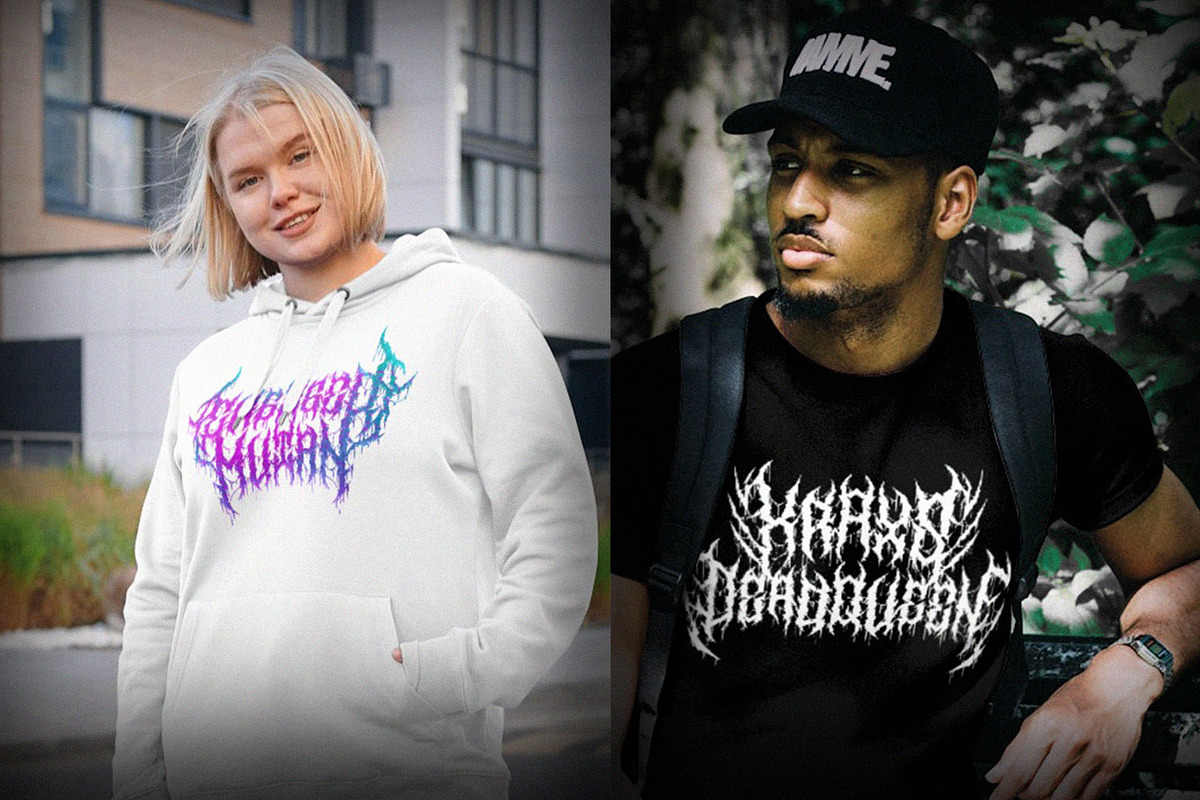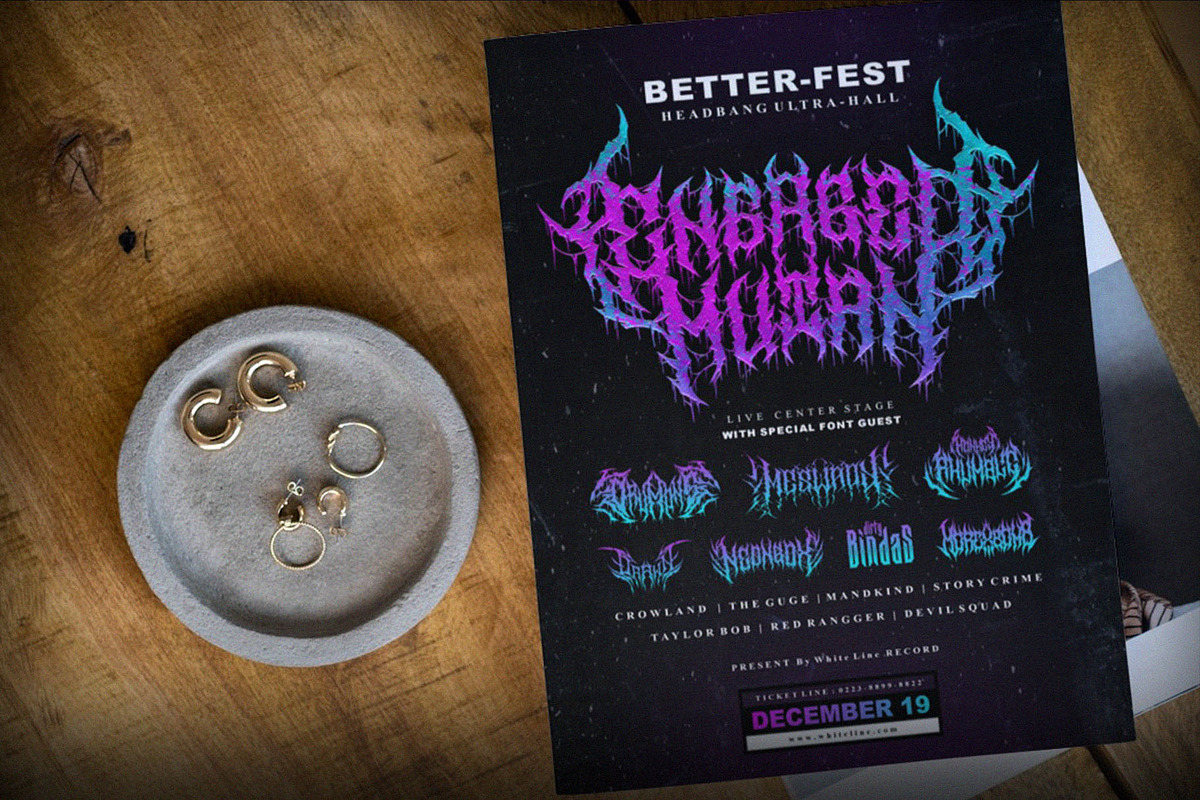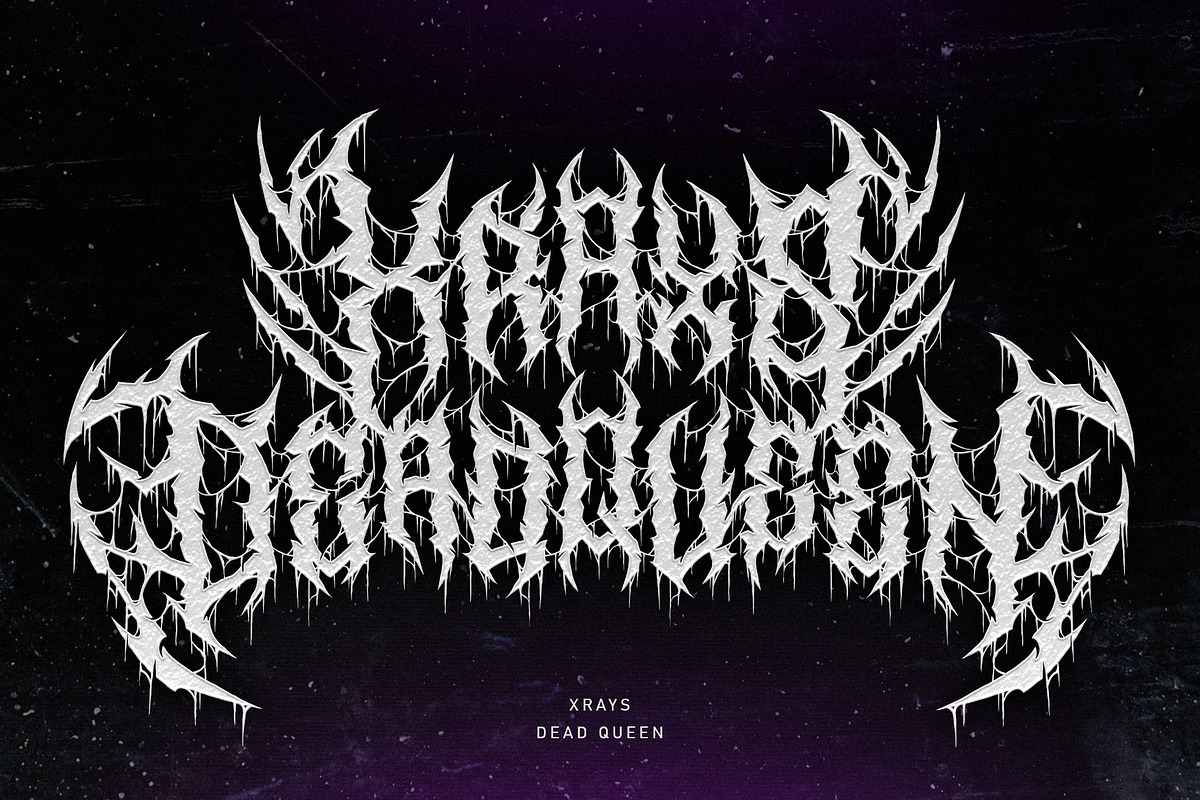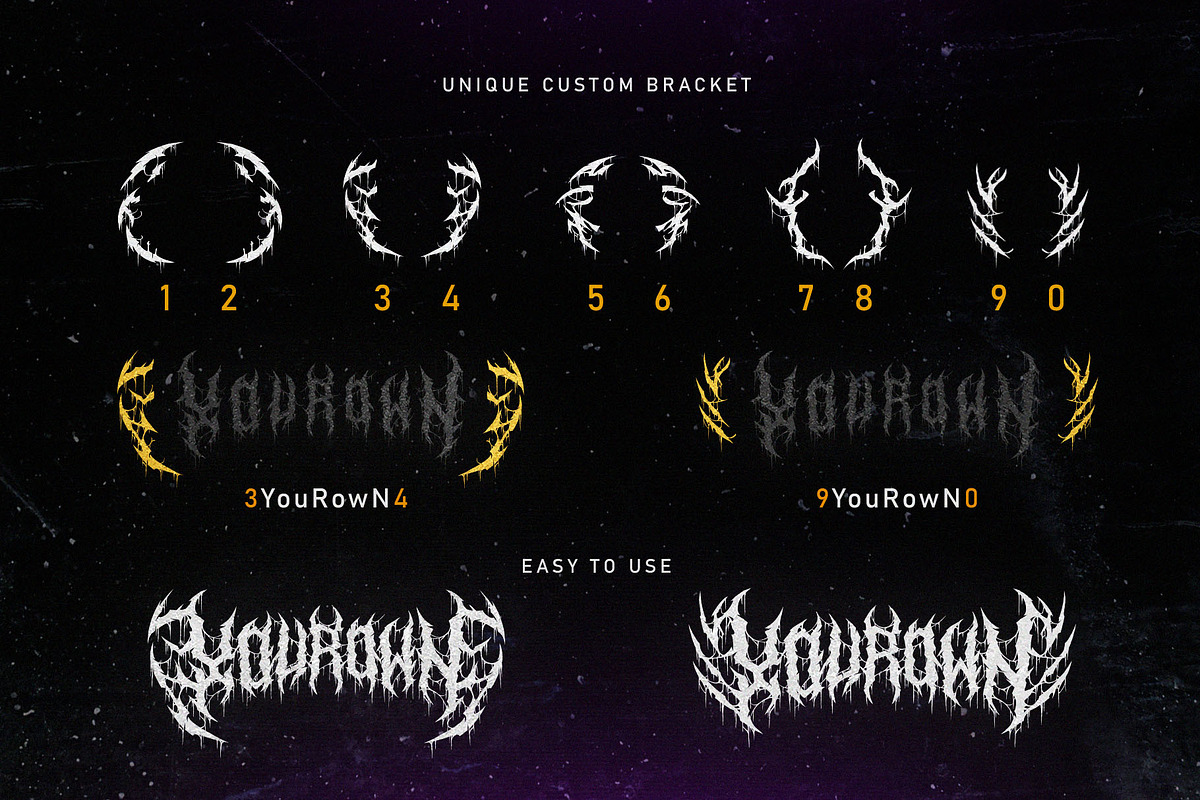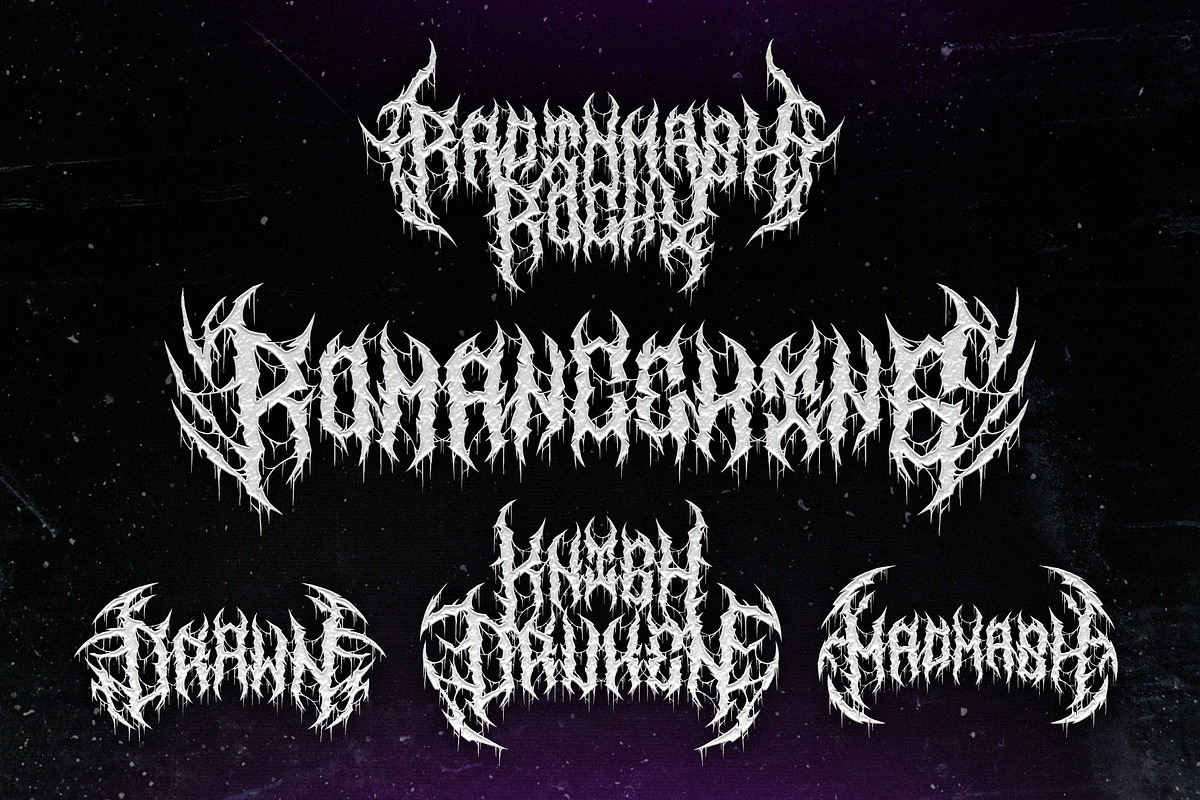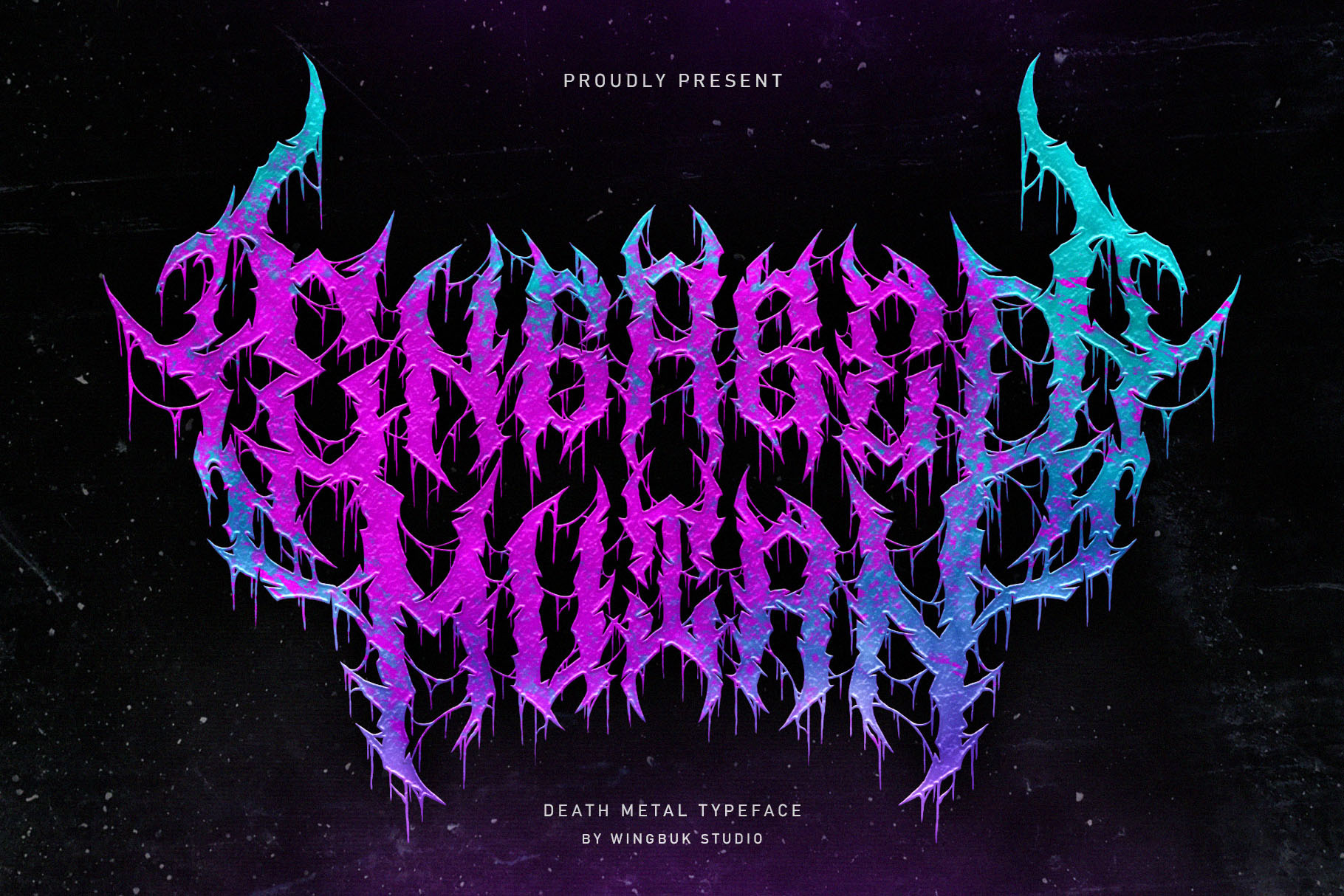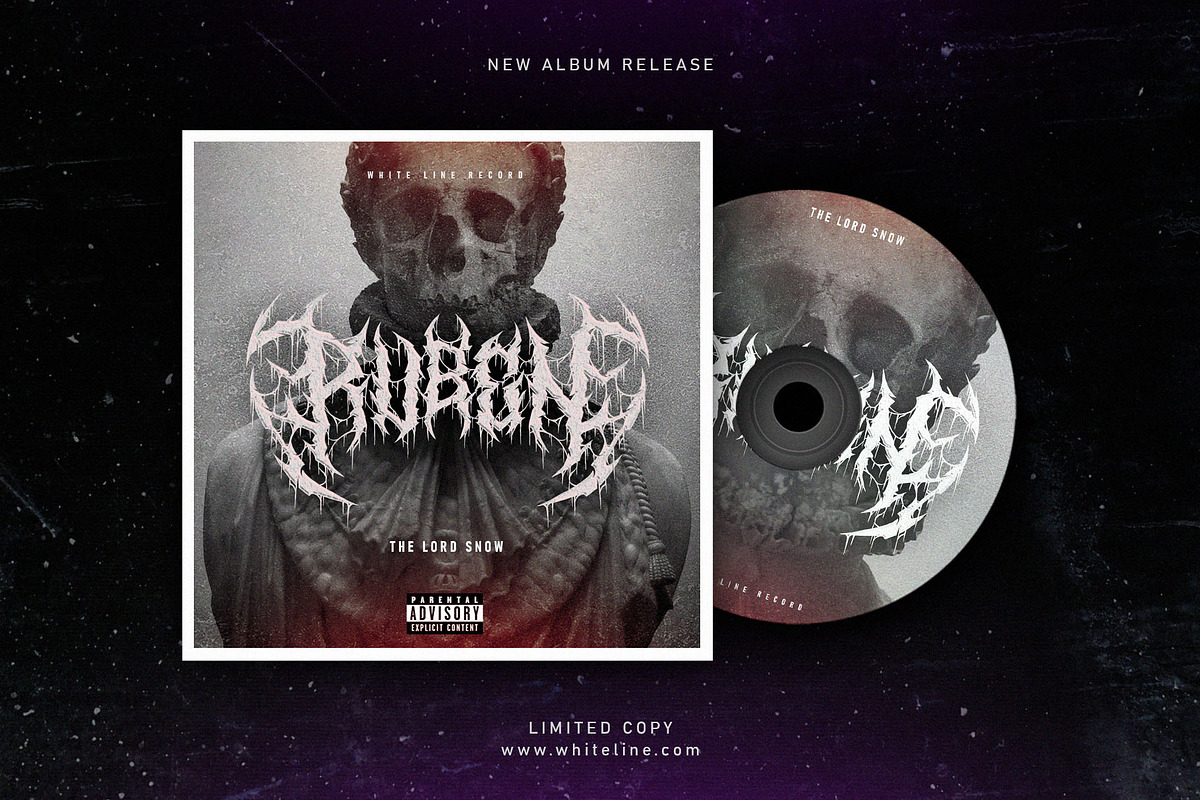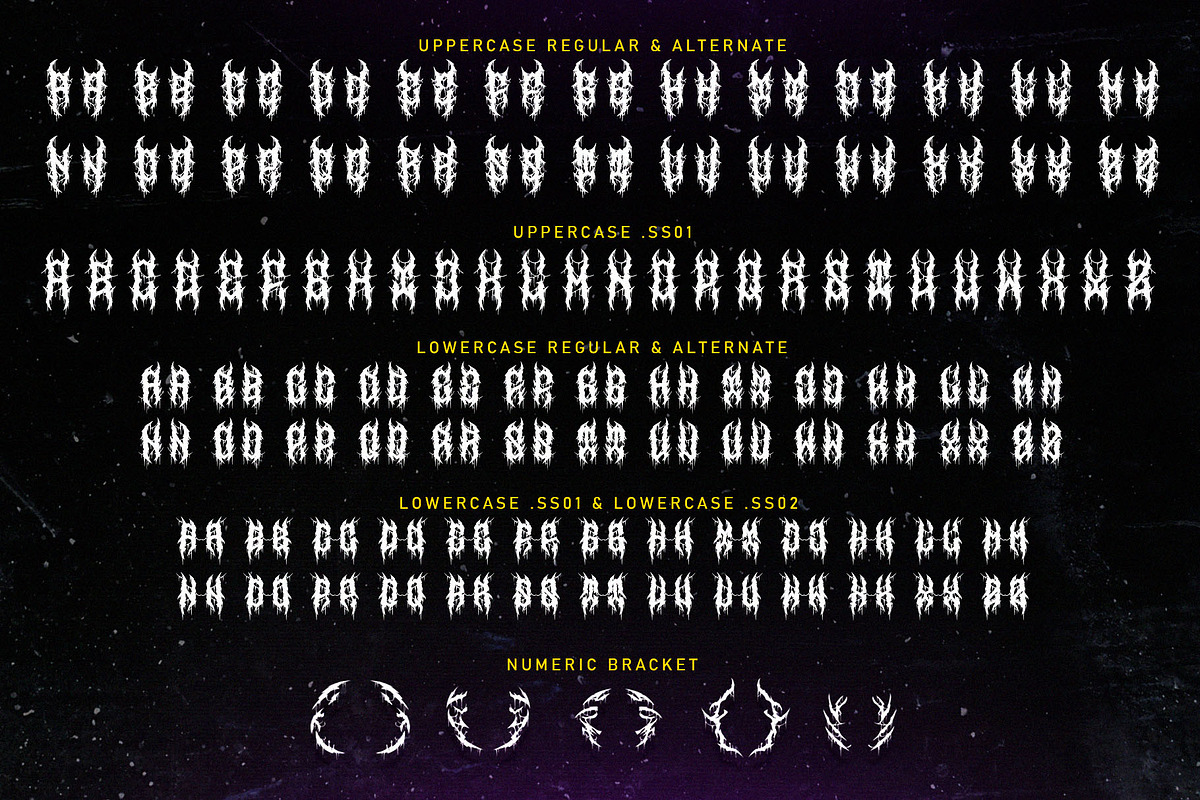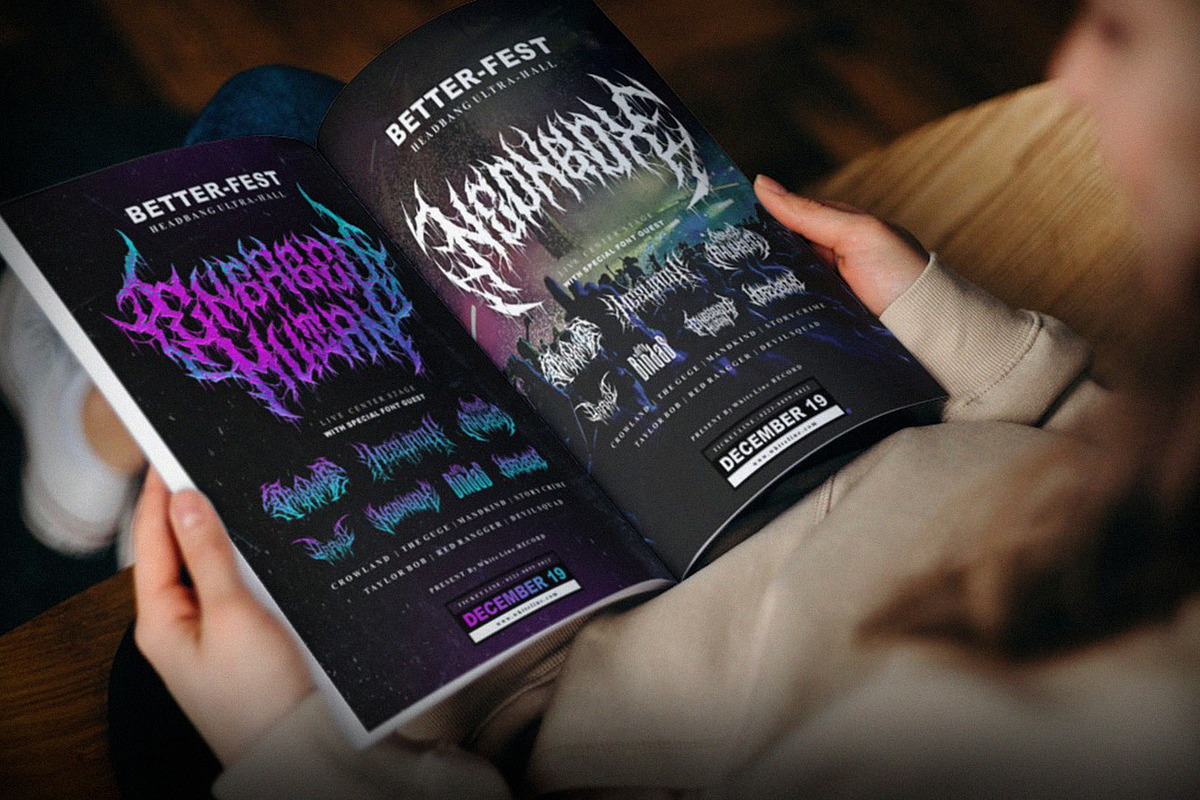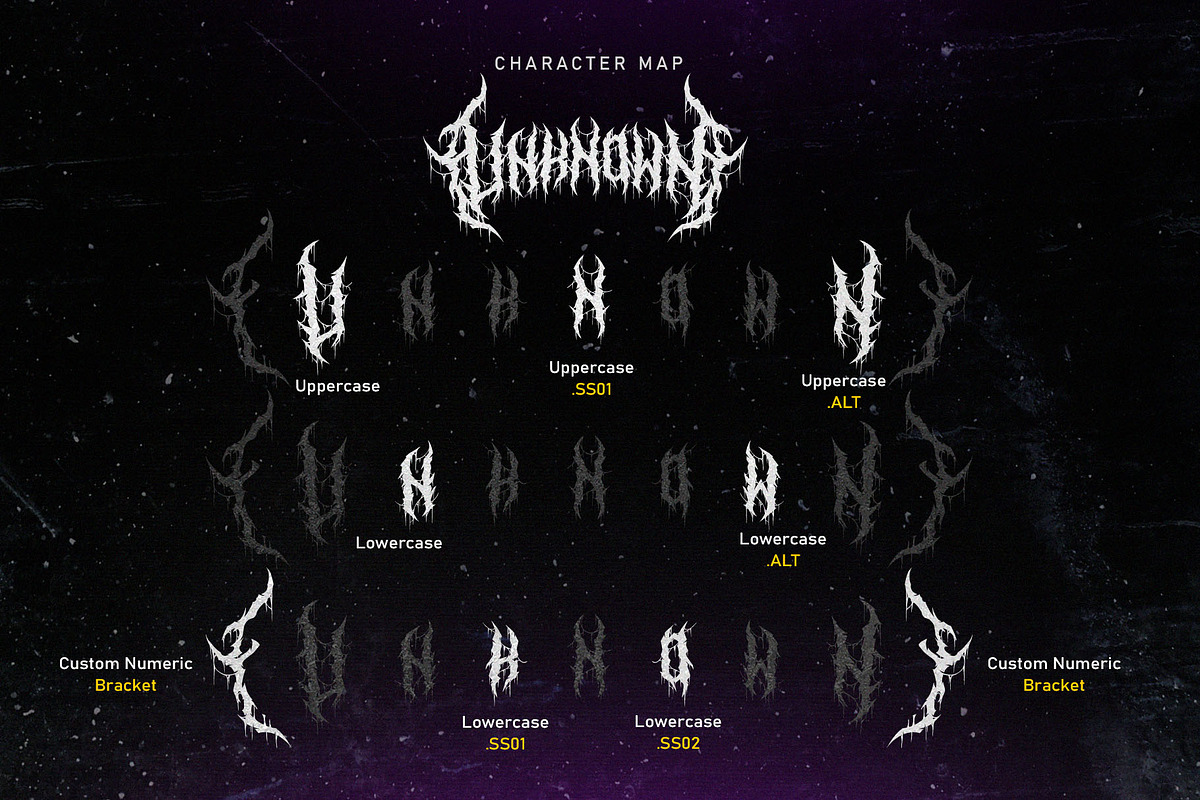
Engaged Mutan | Metal Font
Engaged Mutan is a special death metal font with a touch of sweet darkness ! Giving you a stunning impression of the ferocity of a metal font that's very easy to implement. Perfect for metal band logo, metal apparel, merchandise, concert posters, etc.